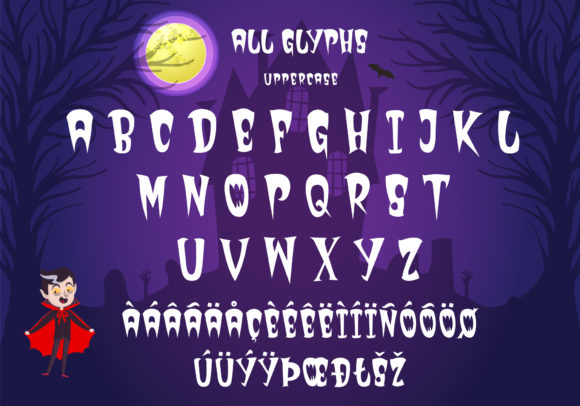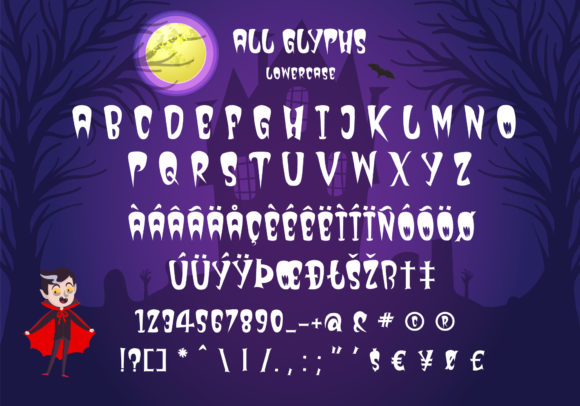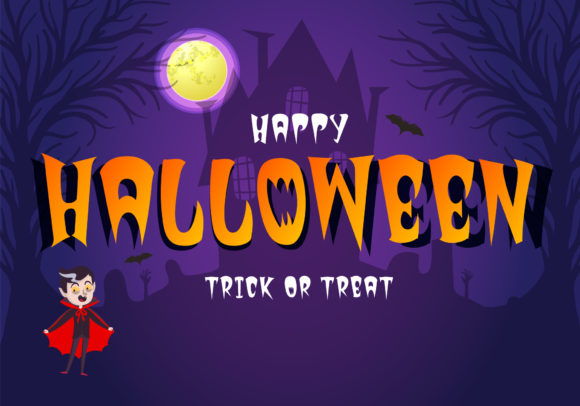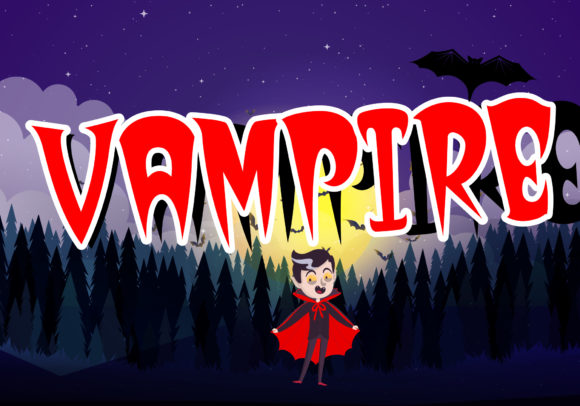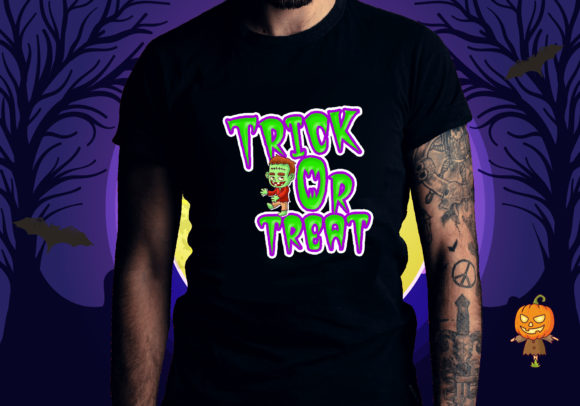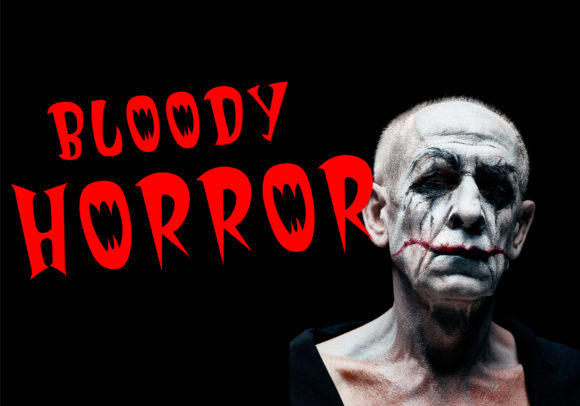
Dracula Font: The Ultimate Display Font for Spooky Halloween Designs
As the spookiest time of the year approaches, designers and crafters are on the lookout for the perfect font to add a touch of eeriness to their Halloween-themed creations. Look no further than the Dracula Font, a bold and authentic display font that’s sure to make your designs stand out from the crowd.
The Inspiration Behind Dracula Font
The Dracula Font is inspired by the iconic character of Count Dracula, the legendary vampire from Bram Stoker’s classic novel. The font’s design is reminiscent of the Gothic architecture and Victorian-era typography that evokes a sense of mystery, horror, and suspense.
Key Features of Dracula Font
- Bold and Authentic: The Dracula Font is a bold and authentic display font that’s perfect for creating eye-catching headlines and titles.
- Gothic-Inspired: The font’s Gothic-inspired design features intricate details and ornate lettering, making it perfect for Halloween-themed designs.
- Highly Readable: Despite its bold and ornate design, the Dracula Font is highly readable, making it perfect for use in a variety of design applications.
- Versatile: The Dracula Font can be used in a variety of design applications, from posters and flyers to invitations and social media graphics.
Creative Ways to Use Dracula Font
The Dracula Font is a versatile font that can be used in a variety of creative ways to add a touch of spookiness to your Halloween designs. Here are a few ideas to get you started:
- Halloween Party Invitations: Use the Dracula Font to create spooky and eye-catching invitations for your Halloween party.
- Poster and Flyer Designs: Create bold and eye-catching posters and flyers for your Halloween-themed events using the Dracula Font.
- Social Media Graphics: Use the Dracula Font to create spooky and engaging social media graphics for your Halloween-themed campaigns.
- Crafting and DIY Projects: Add a touch of spookiness to your crafting and DIY projects, such as Halloween-themed cards, gift tags, and decorations.
Tips for Using Dracula Font Effectively
Here are a few tips for using the Dracula Font effectively in your designs:
- Use it Sparingly: While the Dracula Font is bold and eye-catching, it can be overwhelming if used excessively. Use it sparingly to create emphasis and add a touch of spookiness to your designs.
- Pair it with Other Fonts: Pair the Dracula Font with other fonts to create a unique and visually appealing design.
- Experiment with Colors: Experiment with different colors to find the perfect combination that complements the Dracula Font.
The Dracula Font is a bold and authentic display font that’s perfect for adding a touch of spookiness to your Halloween designs. With its Gothic-inspired design and highly readable lettering, it’s the perfect font for designers and crafters looking to create eye-catching and engaging Halloween-themed creations. So why wait? Download the Dracula Font today and start creating your own spooky and memorable designs!